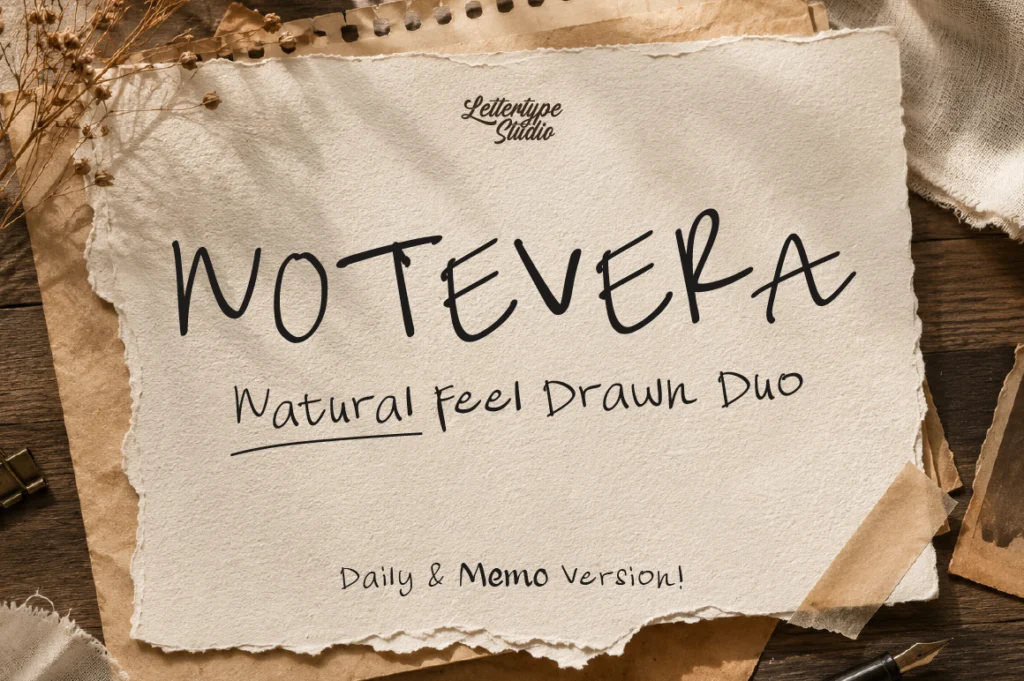
How to Choose Fonts for Beauty Brands
Fonts for Beauty Brands - Elegant Typography for Skincare and Cosmetics
The beauty industry is built around perception. Before customers experience a product, they interact with the packaging, logo, website, and marketing materials. Typography becomes one of the first things people notice, making fonts an essential element in creating trust and emotional connections.
Whether you are building a skincare line, cosmetic brand, perfume label, beauty salon, or wellness business, choosing the right typography helps establish a premium identity and communicate the quality behind your products.
Beautiful typography goes beyond aesthetics. It influences how customers perceive professionalism, luxury, and credibility. The right font can transform an ordinary brand into something memorable.
Luxury beauty brands often rely on elegant serif typography. High-contrast details and balanced proportions create a sophisticated appearance associated with quality and exclusivity. This is why many premium cosmetic brands embrace editorial-inspired typefaces.
For luxury skincare brands, Lucentia offers timeless elegance and refined details. Its modern serif structure creates a premium atmosphere suitable for serum packaging, facial cream labels, beauty websites, and advertising campaigns.
Lucentia works particularly well for:
• Luxury skincare brands
• Cosmetic packaging
• Perfume labels
• Editorial campaigns
• Beauty magazines
Another excellent choice is Montegar. Inspired by high-end editorial aesthetics, Montegar delivers a sophisticated and fashionable look. The font feels luxurious without becoming overly decorative, making it ideal for premium beauty products and boutique brands.
Montegar performs beautifully for:
• Perfume packaging
• Premium cosmetic boxes
• Fashion beauty campaigns
• Boutique skincare brands
• Luxury Instagram content
Packaging design is equally important. Customers often associate beautiful packaging with superior quality. Becaure offers a balance between elegance and readability, making it suitable for product labels and branding materials.
Becaure is especially effective for:
• Cosmetic boxes
• Candle labels
• Essential oils
• Boutique products
• Premium packaging design
Beauty brands that want a more feminine and personal approach may benefit from combining serif and script styles. Elfariany Duo provides both elements, allowing brands to create signature logos and elegant marketing materials.
Elfariany Duo works perfectly for:
• Beauty salons
• Makeup artists
• Lash studios
• Nail bars
• Boutique cosmetic brands
• Wedding beauty businesses
Modern beauty brands are also embracing minimal aesthetics. Clean layouts and subtle typography communicate freshness and professionalism. Minimal designs often appeal to younger audiences and wellness-focused consumers.
Social media plays a major role in beauty marketing. Typography should remain attractive across Instagram posts, reels covers, Pinterest graphics, and promotional campaigns. Consistency across platforms helps improve recognition and build trust over time.
For digital campaigns and feminine branding, Notevera Duo offers versatility and elegance. Its stylish appearance makes it ideal for social media graphics and visual storytelling.
Notevera Duo is suitable for:
• Instagram posts
• Pinterest graphics
• Product launches
• Beauty influencers
• Marketing campaigns
• Promotional banners
Choosing fonts also depends on target audiences. Younger consumers often prefer minimal and modern aesthetics, while premium audiences appreciate timeless elegance and sophisticated details.
One common mistake beauty brands make is choosing overly decorative fonts. Excessive swashes and complicated forms may reduce readability and weaken professionalism. Simplicity often creates stronger and more luxurious impressions.
Another mistake is using inconsistent typography across packaging, websites, and social media. Repetition creates familiarity, and familiarity strengthens brand recognition. Successful beauty brands maintain visual consistency throughout every customer touchpoint.
Typography and color should work together. Neutral palettes combined with elegant serif fonts communicate luxury and sophistication. Soft pinks and warm creams create feelings of calmness and femininity, while darker palettes add exclusivity and confidence.
Conclusion
The best fonts for beauty brands combine elegance, readability, and personality. Luxury skincare labels, cosmetic brands, salons, and wellness businesses all benefit from typography that reflects quality and sophistication. Fonts like Lucentia, Montegar, Becaure, Elfariany Duo, and Notevera Duo help beauty brands create premium identities that customers remember and trust.